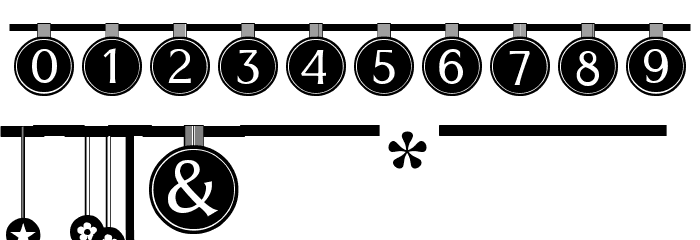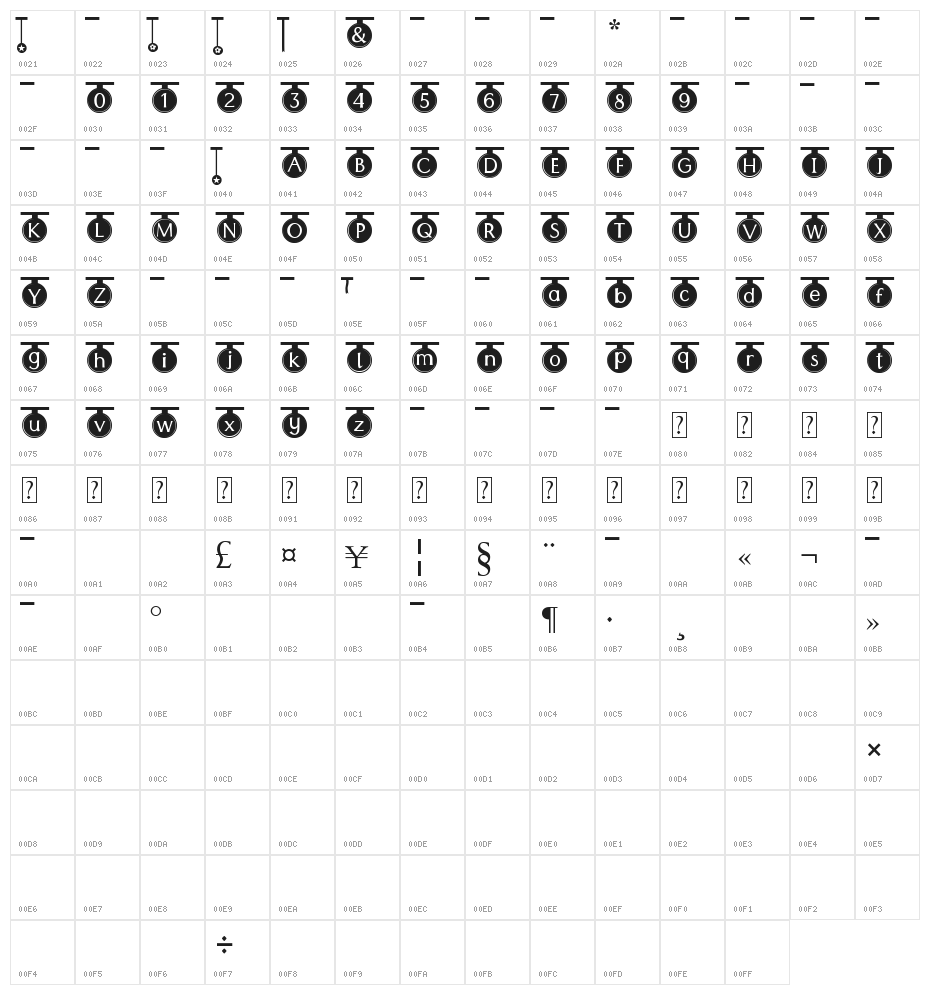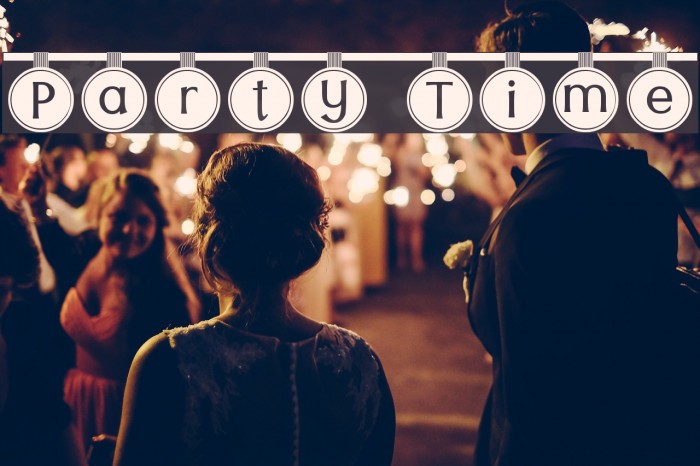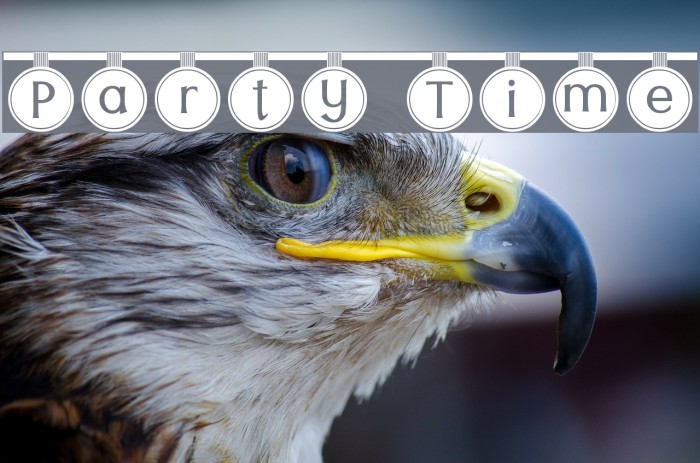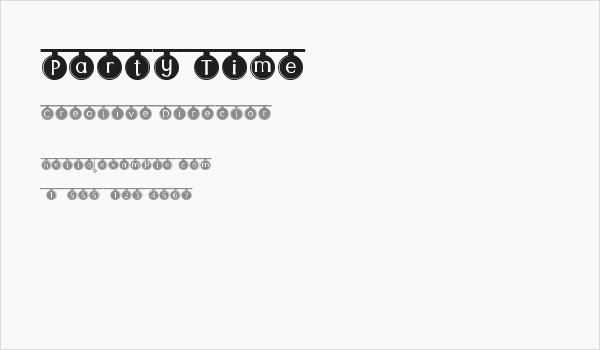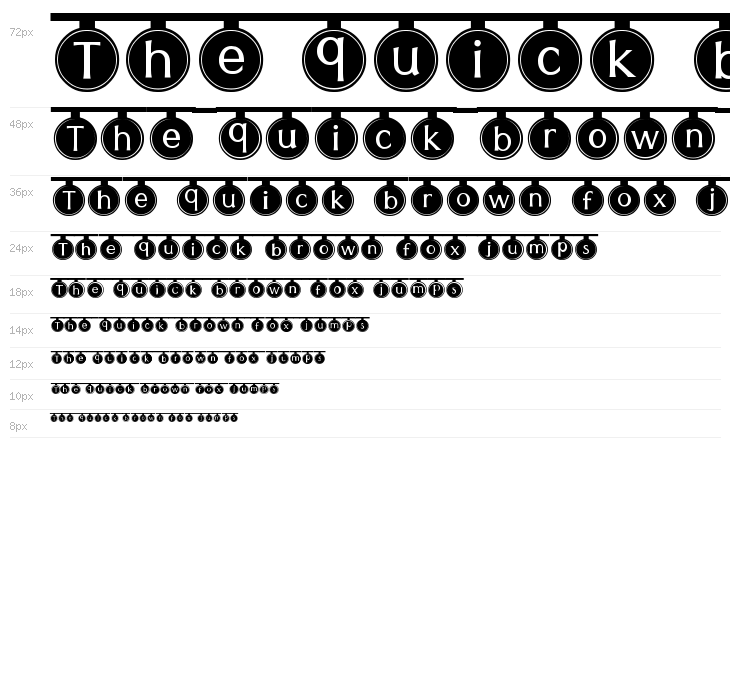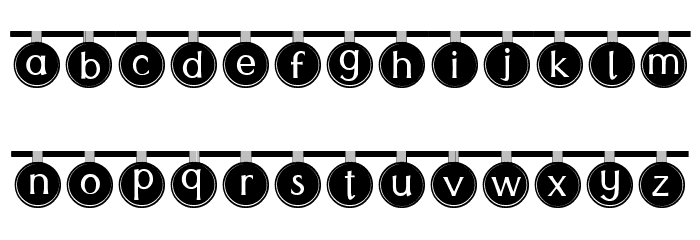
Party Time Font
Party Time Description
This font features a playful and festive design, with each character enclosed in a circular ornament resembling a string of party lights. The letters are sans-serif, offering a clean and modern look, while the circular background adds a decorative touch. The uppercase and lowercase letters maintain consistent styling, ensuring readability and uniformity. The numbers and special characters are similarly styled, making the font versatile for various applications. The overall aesthetic is lively and suitable for celebratory themes.
| Proposed Projects | Perfect for party invitations, festive banners, event posters, and playful branding projects. |